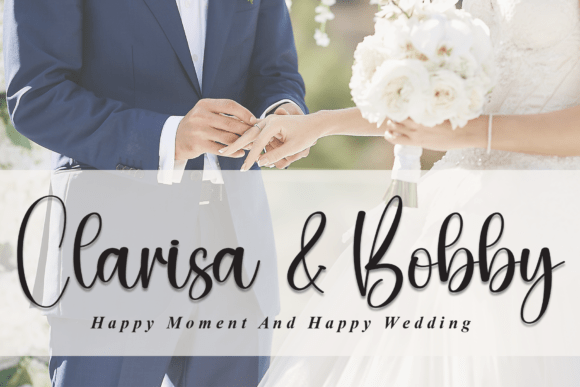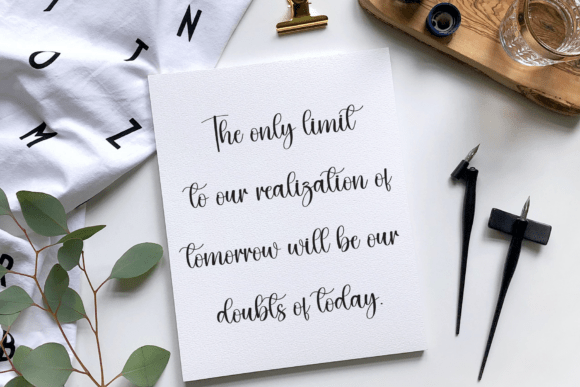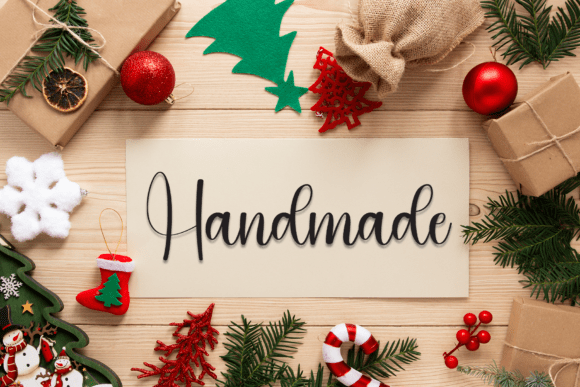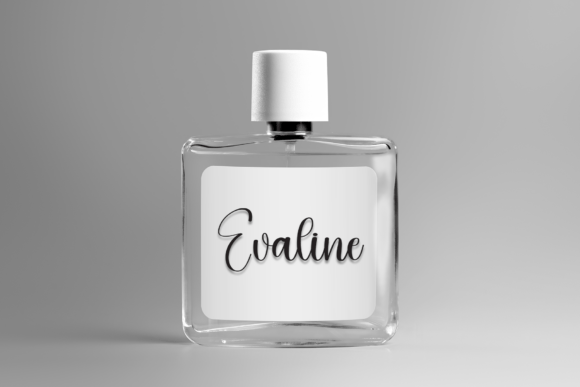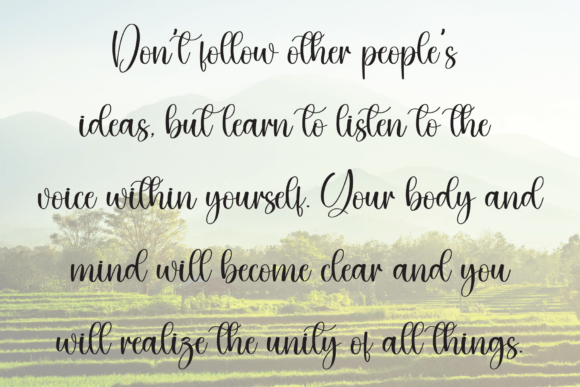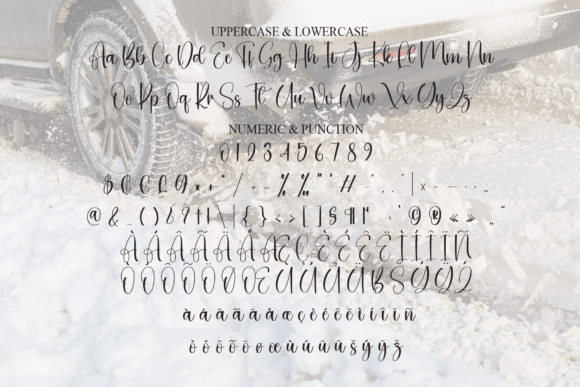
Introduction to Slicky Font
As designers, we’ve all been there – staring at a blank canvas, trying to bring a creative project to life. The cursor blinks, taunting us with its emptiness, until suddenly, a spark of inspiration strikes. That’s when the magic happens, and our design begins to take shape. But what if we could capture the essence of that spark, and bottle it into a font that exudes personality and charm? Enter the Slicky Font, a display handwritten font that embodies the warmth of real handwriting with bold, eye-catching strokes.
With its unique blend of natural flow and standout style, the Slicky Font is the perfect design resource for creatives who crave authenticity and flair. Whether you’re working on a free download project or a high-quality logo design, this versatile font is sure to elevate your design game. Plus, its transparent background makes it easy to customize and pair with other design elements. Get ready to unlock the full potential of your creative vision with the Slicky Font!
Key Features of Slicky Font
- Designed with a modern and sleek aesthetic, ideal for contemporary design projects
Honest Review: Slicky Font
As a designer, I’m always on the lookout for high-quality design resources to elevate my creative projects. Recently, I stumbled upon Slicky Font, and I’m excited to share my honest review with you.
What works well: ✨ The font is incredibly versatile, with a sleek and modern design that’s perfect for a wide range of applications. I love that it comes in both solid and outline versions, making it easy to customize for different creative projects. The transparent background option is also a bonus, allowing me to easily layer the font over images or other design elements.
Overall, I’m impressed with Slicky Font and would definitely recommend it to fellow designers looking for a high-quality, modern font for their creative projects. With a little more flexibility in terms of file formats, it could be a truly top-notch design resource.
- High-quality, modern design
- Solid and outline versions available
Tips for Getting the Most Out of Slicky Font
Experiment with different font sizes, colors, and styles to find the perfect combination for your project. Use the transparent background to create visually appealing text overlays or graphics.
The Slicky Font is ideal for modern and creative projects, such as digital marketing materials, social media graphics, and branding materials. Its sleek and sophisticated design makes it perfect for making a lasting impression on your audience.